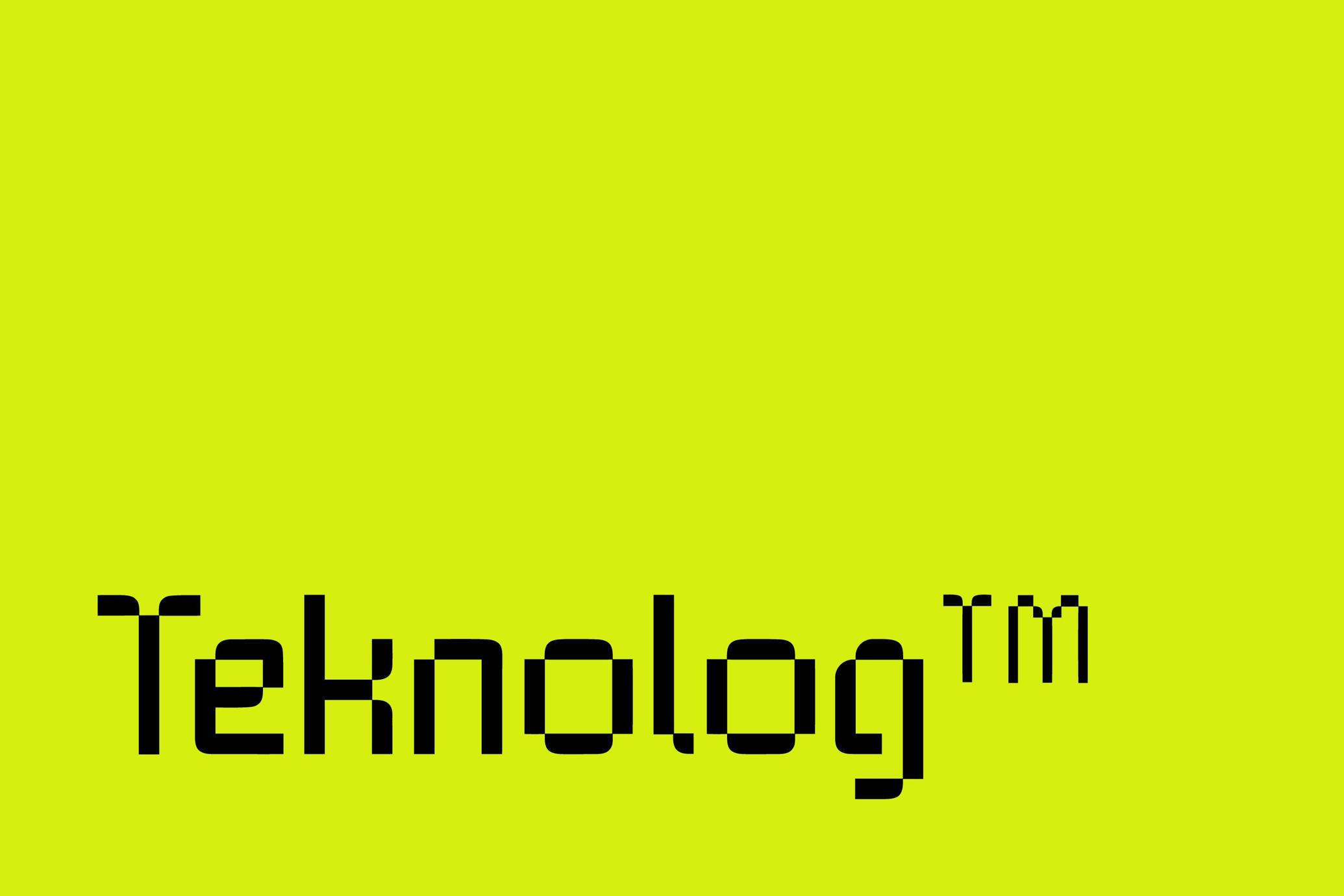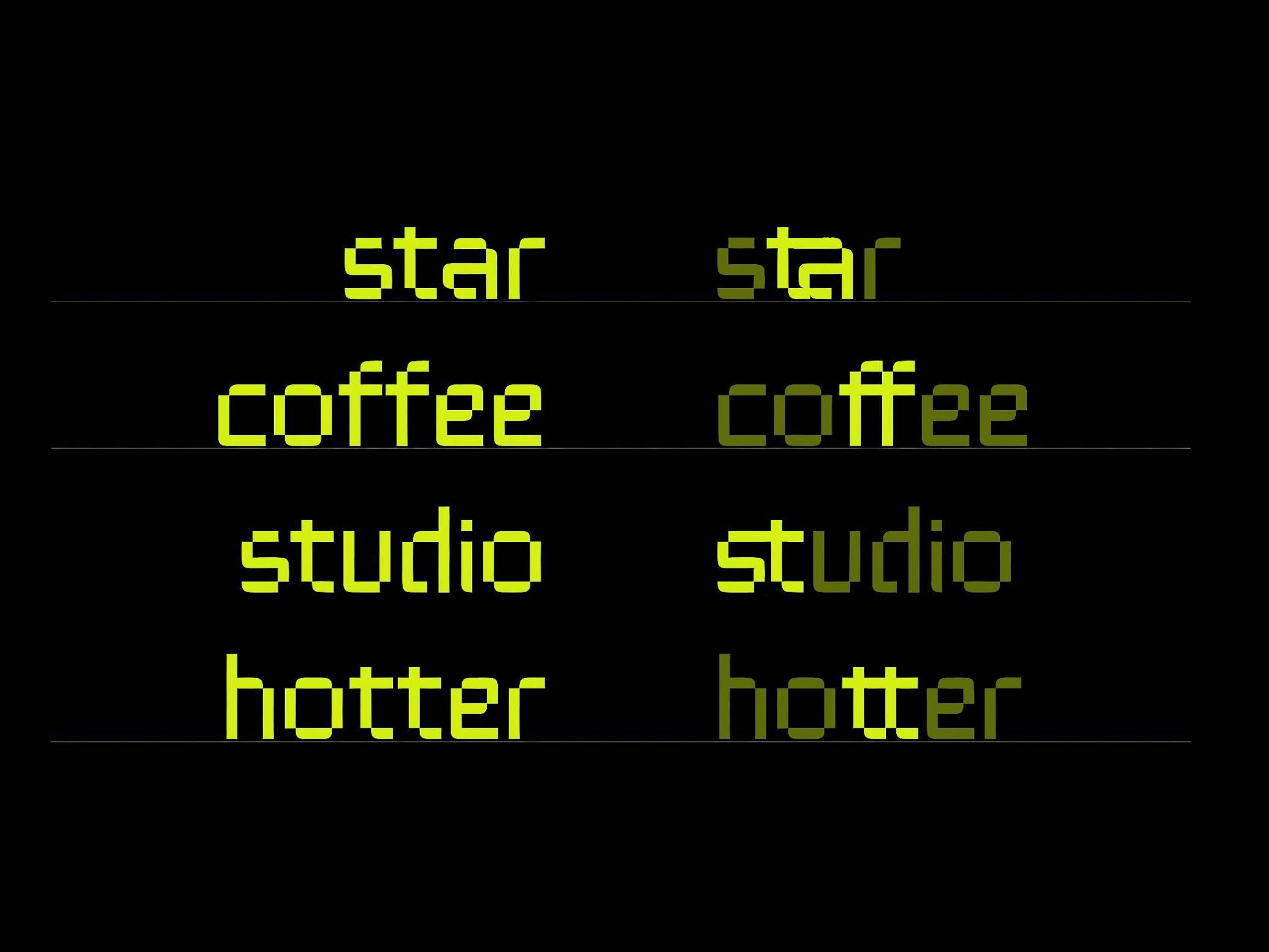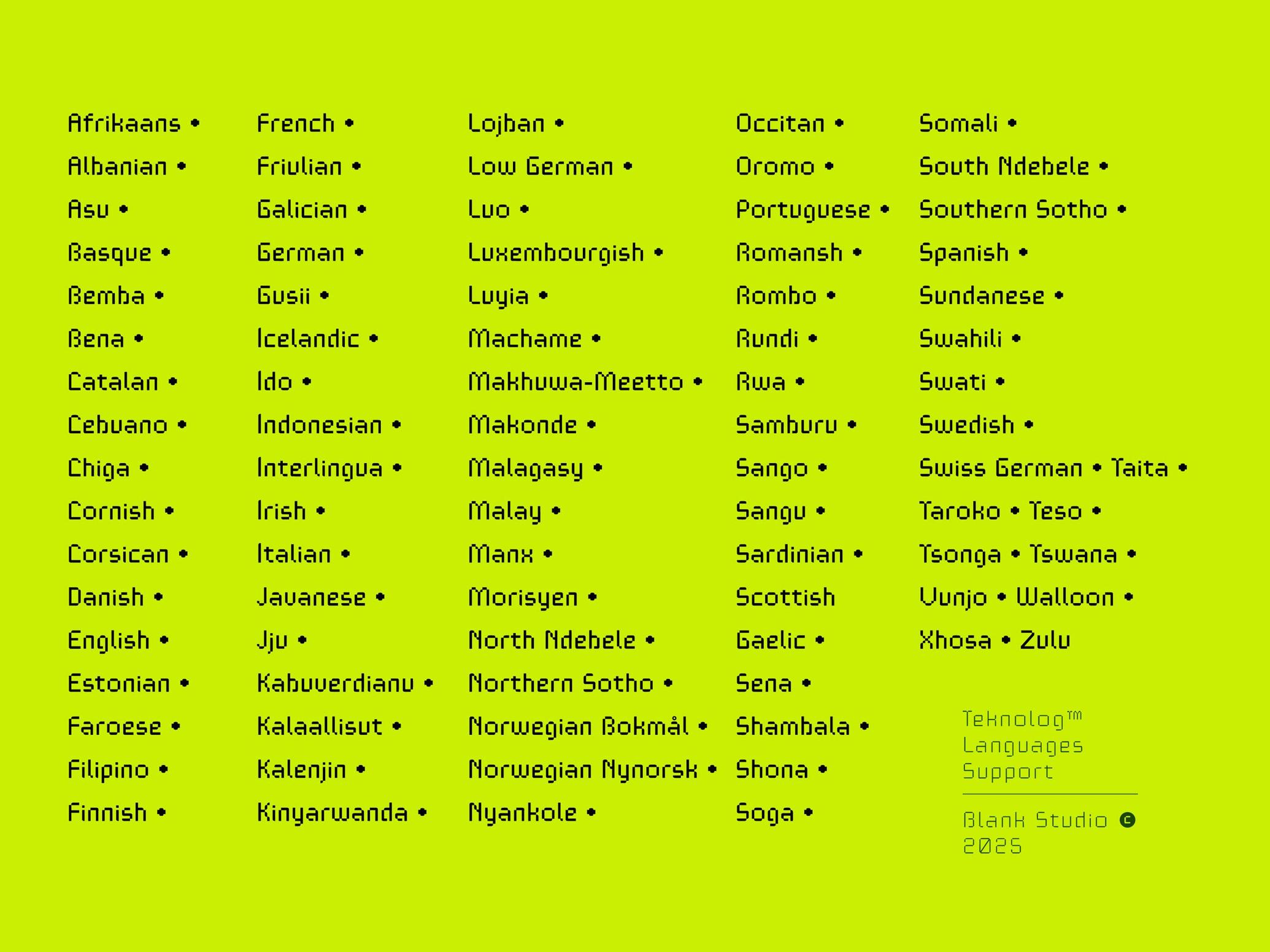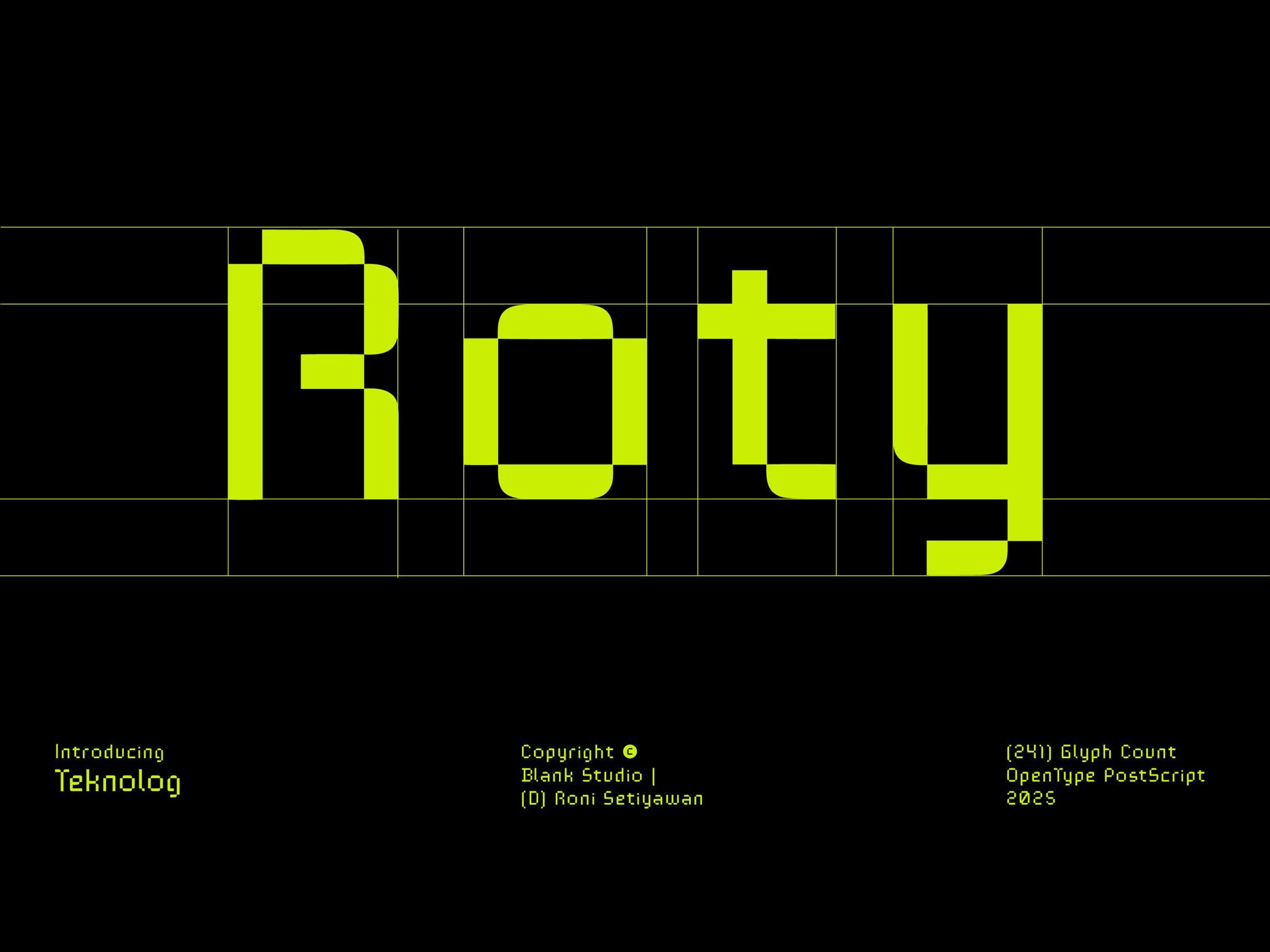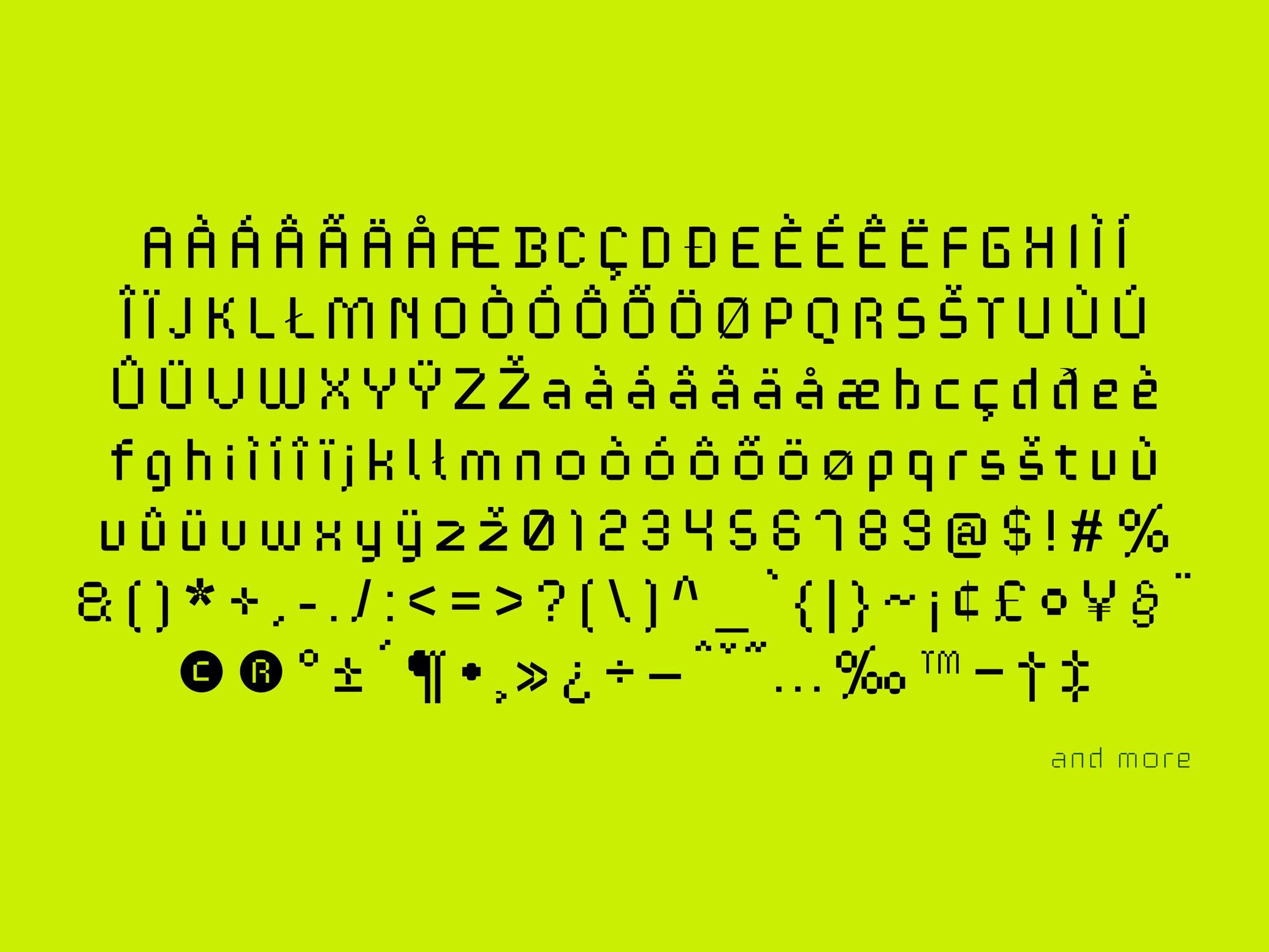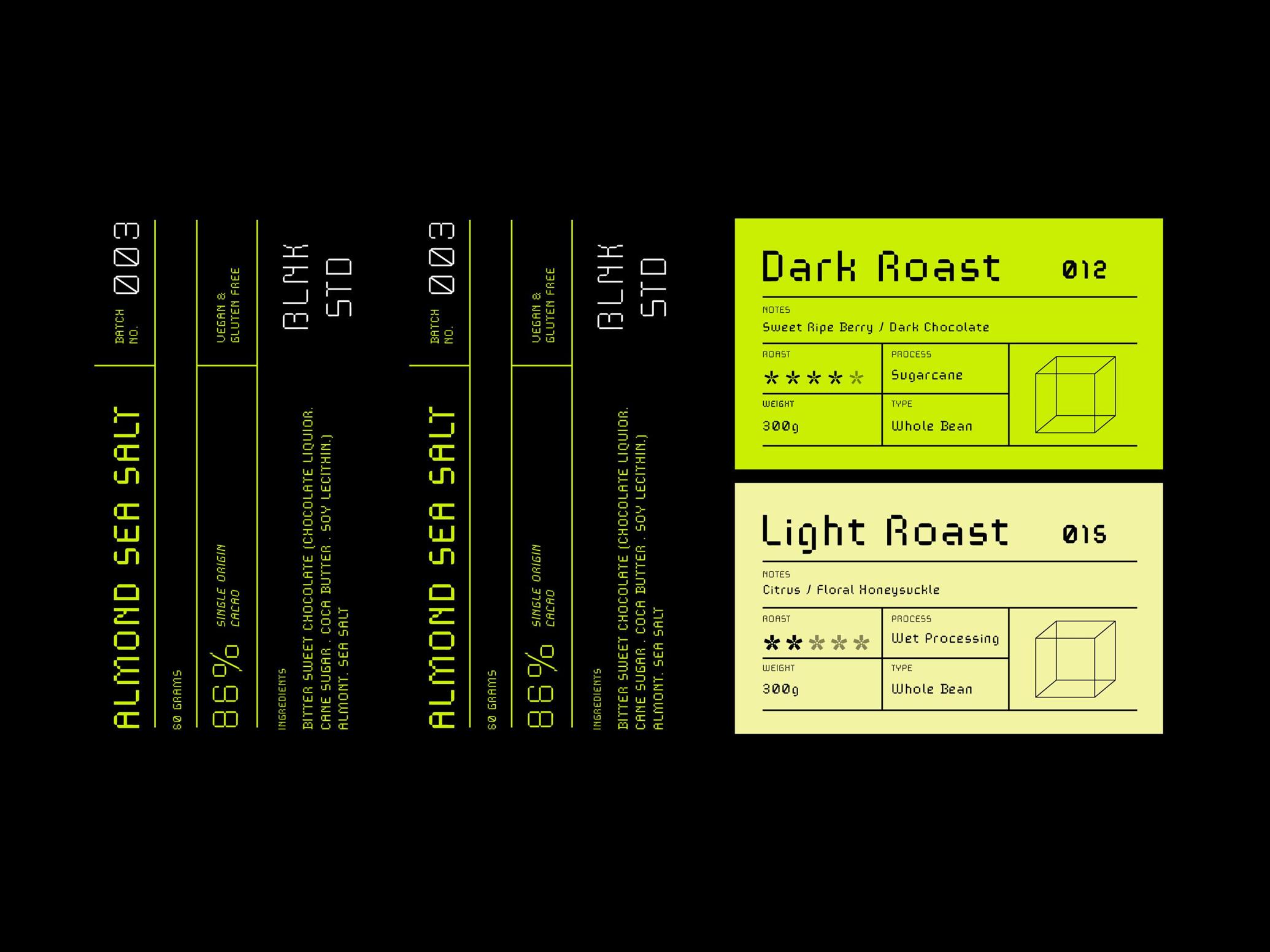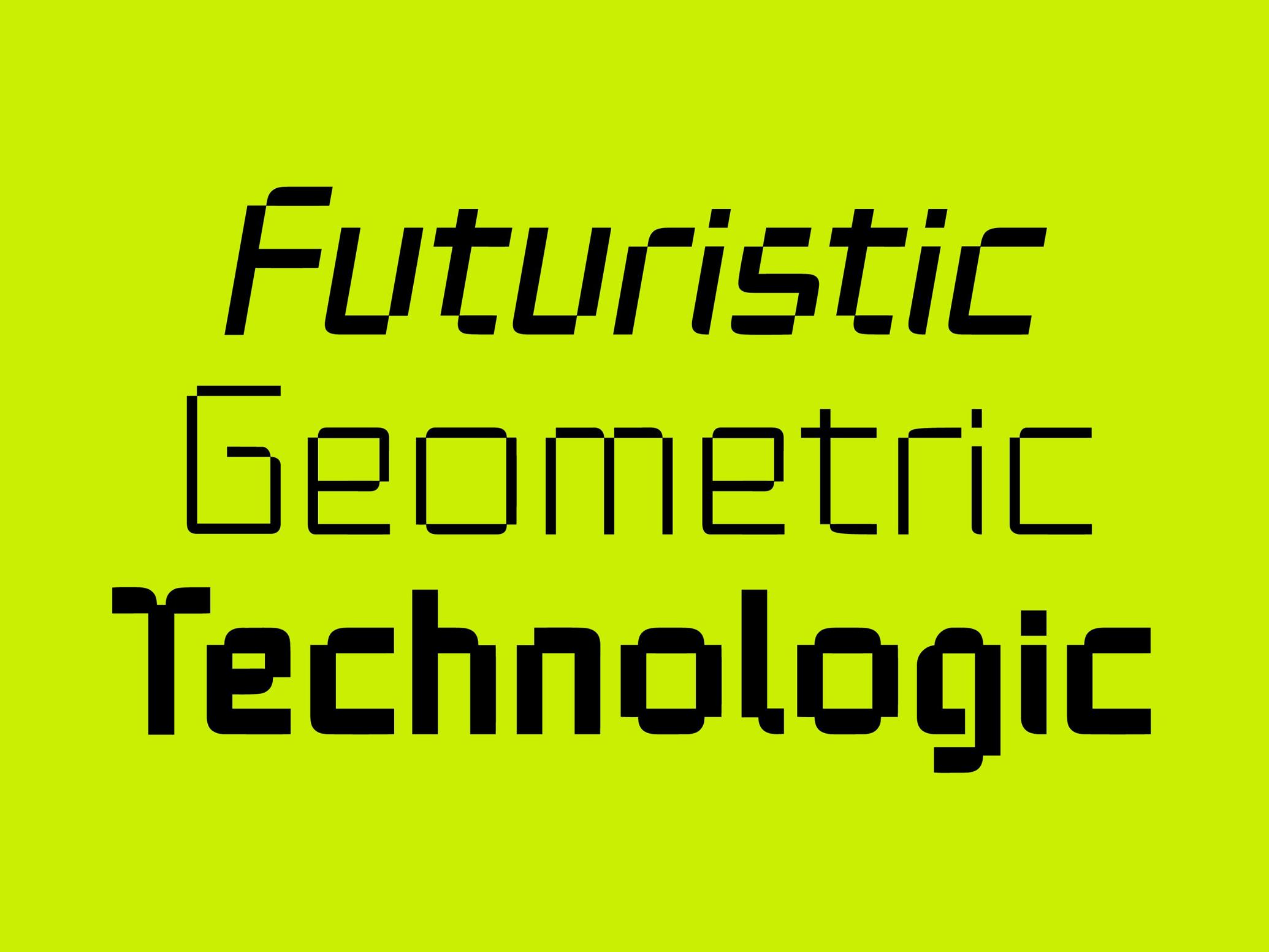
TEKNOLOG Digital Font
We refuse to whisper retro — so let's boot it up with a dial-up screech and a calculator beep. The TEKNOLOG is pure pixelated nostalgia, dripping in early-tech energy: remember translucent plastics, CRT glow, spreadsheet green, monochrome icons, and the stubborn charm of 90s productivity tools. Every character feels like it was ripped from an old educational CD-ROM or the UI of a forgotten Game Boy spreadsheet simulator.
Inside, you'll find a meticulously crafted sans serif with a complete glyph set: upper and lower case punctuation marks, numbers, and international characters. Great for concept decks, editorial spreads, experimental posters, or reimagining what AppleWorks would've looked like if it had a rave phase. Or mb you're designing an ironic OS reboot or a branding concept that smells faintly of thermal paper — rest assured, TEKNOLOG brings the circuits, the syntax, and the sweet, sweet system errors.